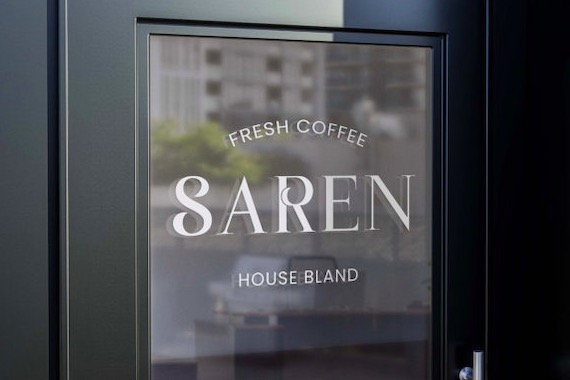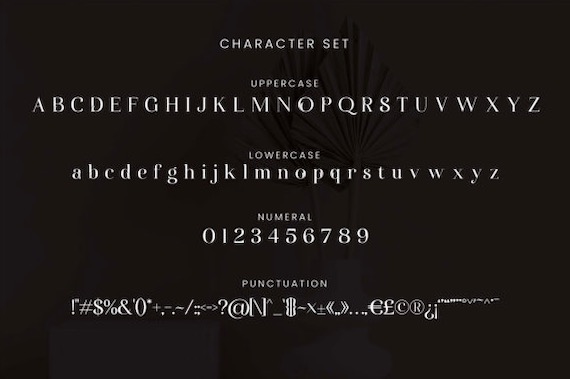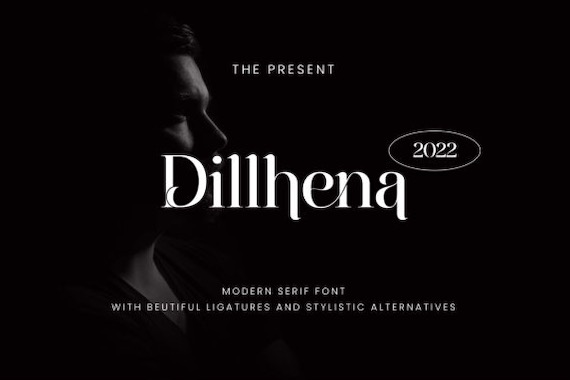
Dillhena is a modern and classy sans serif that was created and shared by Vunira. This basic font has a neat vibe & minimalist feel, it can easily apply to your favorite designs, for example, book covers, magazines, social media posts, invitations, and so much more. This font is PUA encoded which means you can access all of the amazing glyphs and ligatures with ease!
Dillhena Serif Font